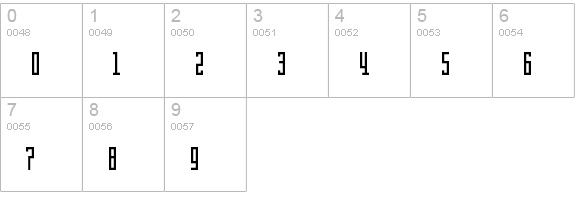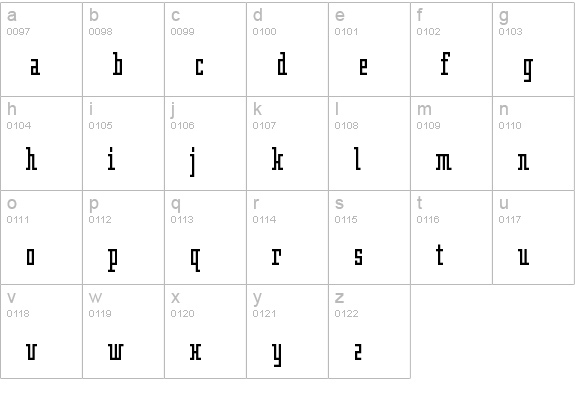
Oblong Regular Font Details
Oblong Regular is the standard, neutral variant in the Oblong typeface family \xE2\x80\x94 well suited to general body text, paragraphs, and standard typographic work.
Oblong Regular is a modern and versatile font that effortlessly combines readability with a touch of sophistication. Its clean lines and subtle curves make it perfect for a wide range of design projects, from logos to web design to print materials. The balanced proportions and elegant letterforms of Oblong Regular lend a timeless quality to any text it adorns. The best part? Oblong Regular is completely free to download at FontsMarket.com. This means you can elevate your design projects with this high-quality font without spending a dime. Don't miss out on the opportunity to enhance your creations with the sleek and stylish Oblong Regular font, now available for free download at FontsMarket.com.